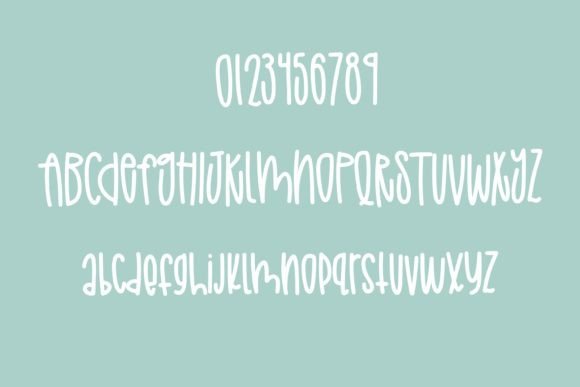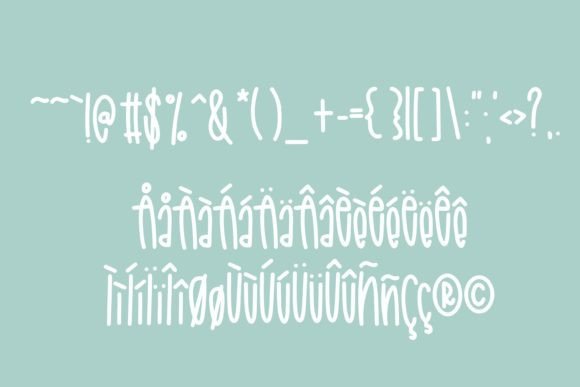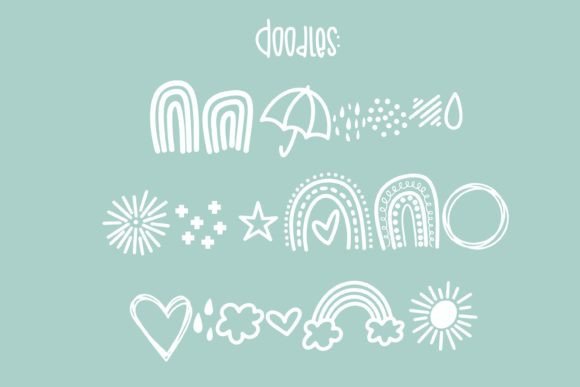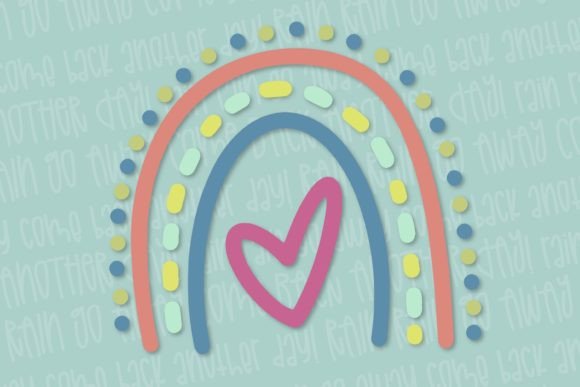
Introduction to Rainy April Font
As a designer, there’s nothing quite like the thrill of brainstorming a new creative project. The blank page stares back at you, waiting for the perfect spark to ignite your imagination. For many of us, that spark comes in the form of a beautifully designed font – one that sets the tone for our entire project and brings it to life. And that’s exactly where the Rainy April Font comes in – a delightful, hand-drawn font that captures the whimsy and charm of a rainy day.
Perfect for children’s designs, school projects, and any other creative endeavor that needs a dash of joy, the Rainy April Font is a valuable resource for designers. Its high-quality design and transparent background make it easy to integrate into any project, while its playful style is sure to add a fun and weather-inspired touch to your work.
Key Features of Rainy April Font
- High-quality design resource ideal for creative projects and personal use.
- Includes a transparent background, allowing for seamless integration with various design elements.
- Features a unique, hand-drawn style with intricate details, perfect for adding a personal touch to designs.
Honest Review: Rainy April Font
I recently stumbled upon the Rainy April Font, and I must say it’s a delightful addition to any design resource collection. This font is perfect for creating a moody and atmospheric vibe in your creative project.
- ✨ High-quality design that’s both elegant and sophisticated
- ✨ Beautifully crafted, with unique letterforms and subtle texture
- ✨ Transparent background, making it easy to use with any image or design
- ⚠️ Limited font sizes and styles available for download
- ⚠️ Some letters may not render perfectly in certain font sizes
Overall, I’m really impressed with the Rainy April Font. While it may have some limitations, its unique design and free download make it a great resource for designers looking to add some atmosphere to their creative projects.
How to Use Rainy April Font
The Rainy April Font is a high-quality design resource that offers a unique and creative touch to any project. With its transparent background, this font is perfect for adding a subtle yet effective design element to your work.
To get the most out of the Rainy April Font, consider the following tips:
- Use it sparingly to add a touch of elegance to your design.
- Combine it with other design elements to create a cohesive look.
- Experiment with different font sizes and colors to achieve the desired effect.
The Rainy April Font is ideal for:
- Business cards and marketing materials.
- Personal projects and creative endeavors.
Alternatives to Rainy April Font
Great Vibes is a fun and playful font ideal for creative projects that need a touch of whimsy. It’s free to download and has a high-quality design that’s perfect for designers. When to use: For projects that require a casual and relaxed tone. Comparison to Rainy April Font: Great Vibes is more playful and fun, making it suitable for projects that need a lighthearted and approachable feel.
Lato is a modern sans-serif font that’s perfect for design resources that require a clean and simple look. It’s highly customizable and has a transparent background, making it ideal for creative projects. When to use: For projects that require a modern and sleek design. Comparison to Rainy April Font: Lato is more modern and sleek, making it suitable for projects that need a contemporary and stylish look.
Can I modify or customize the Rainy April Font to fit my specific design needs?
While the Rainy April Font is a high-quality, pre-designed font, you can experiment with modifying its characteristics to suit your project’s requirements. However, please note that any significant modifications may affect the font’s overall aesthetic and functionality. It’s